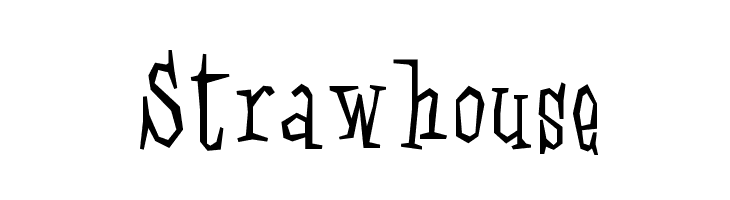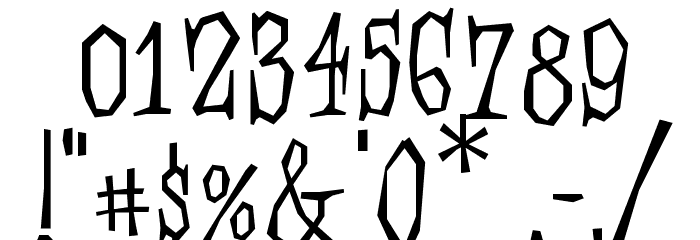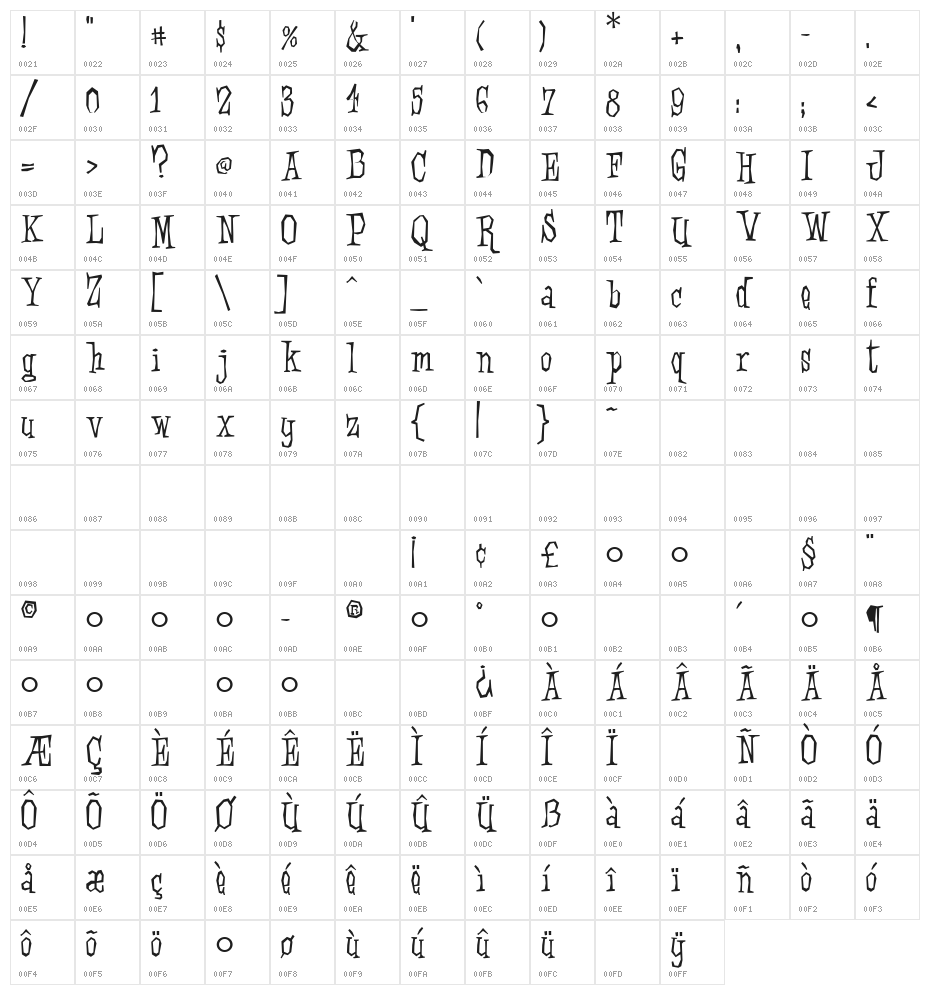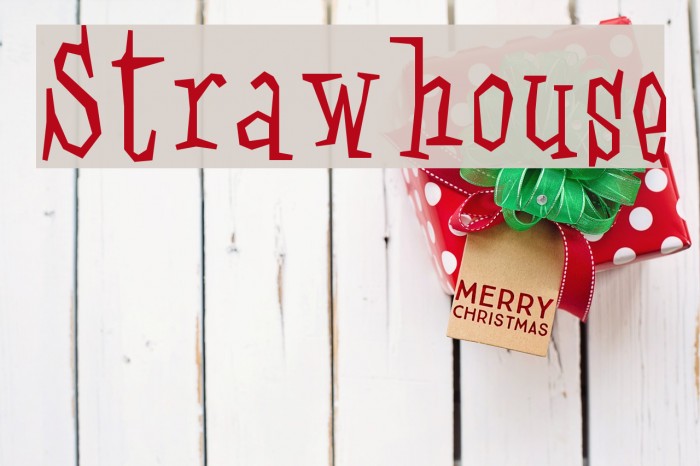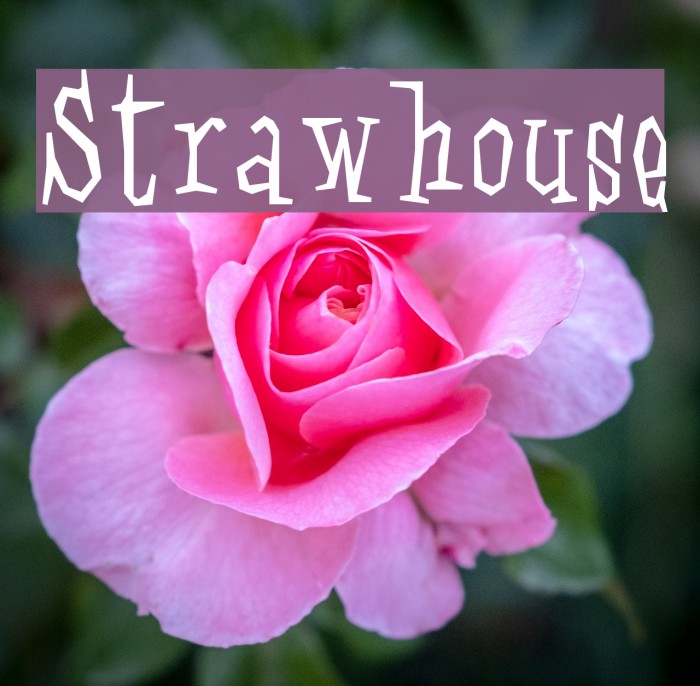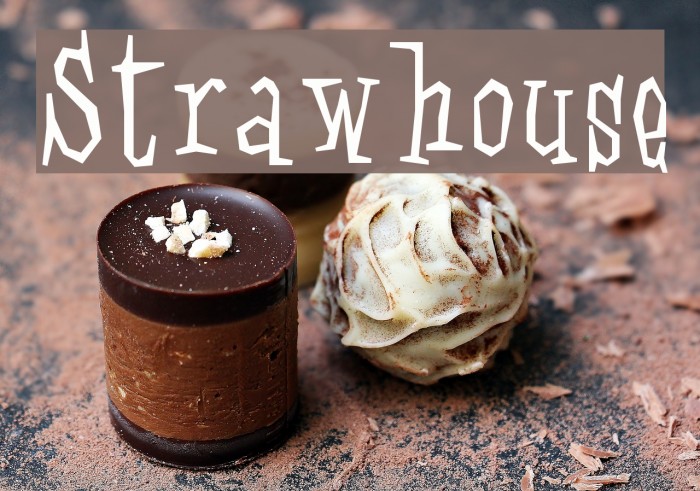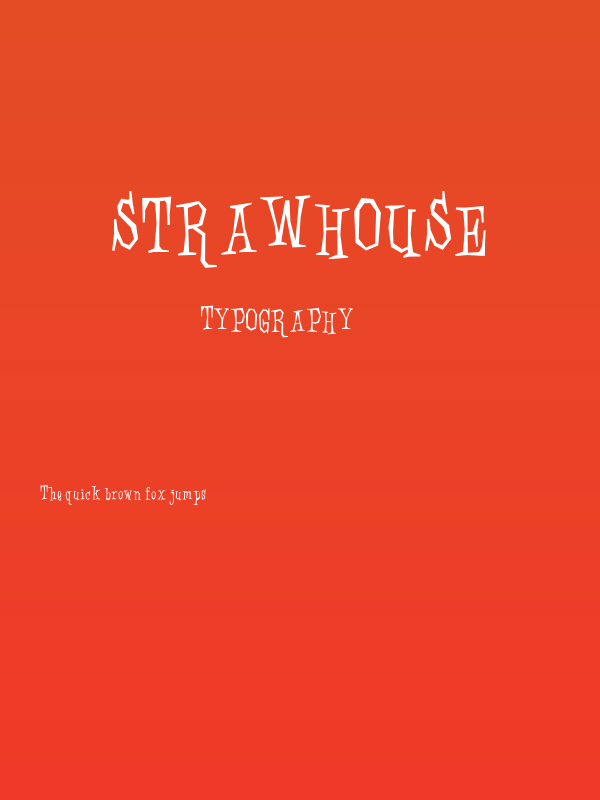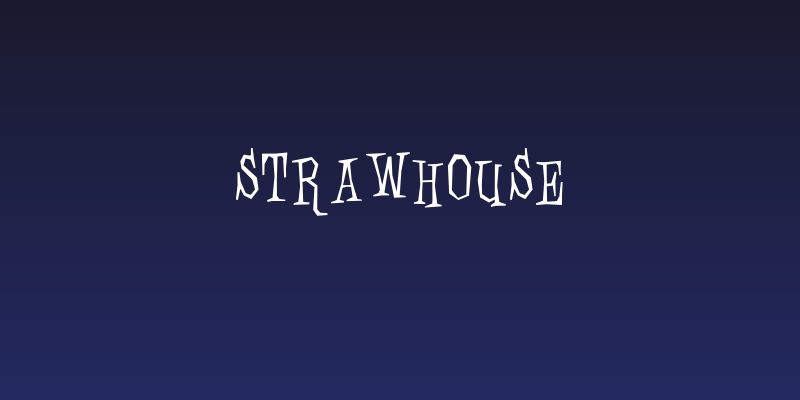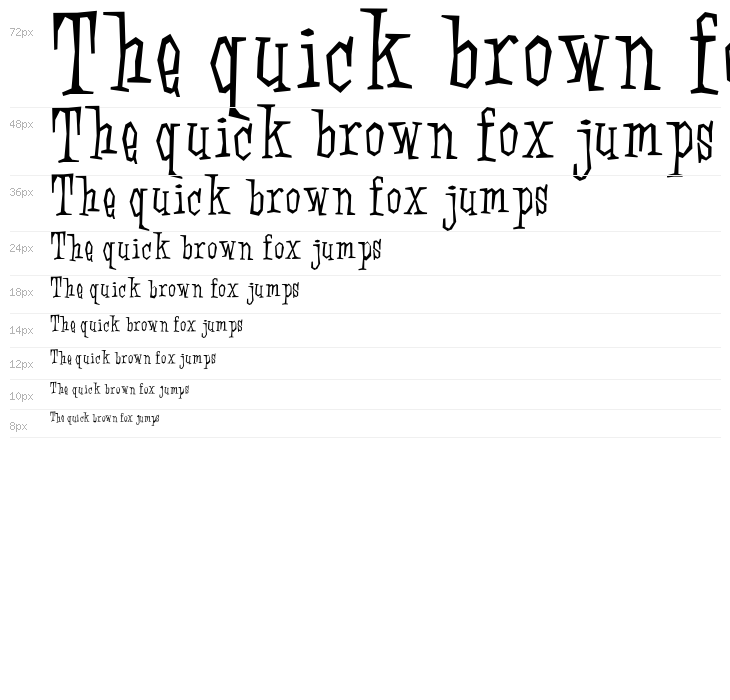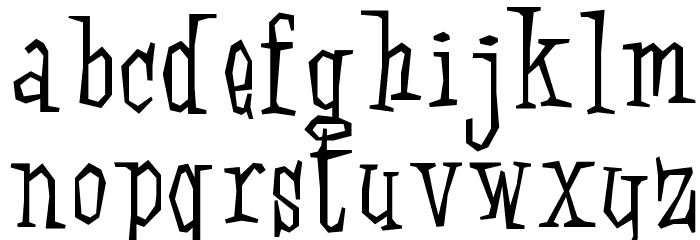
Strawhouse Font
Strawhouse Description
This font features a unique and quirky design with irregular, playful strokes that give it a hand-drawn appearance. The uppercase letters are tall and narrow, with varying line thicknesses that add a dynamic feel. The lowercase letters maintain a similar style, with some characters having distinctive loops and curves. Numbers and special characters follow the same whimsical design, making the font suitable for creative and informal projects. The overall look is both artistic and slightly rustic, perfect for adding a touch of personality to any design.
| Overall Style | Artistic, Rustic |
| Use Case | Headlines, Creative projects, Informal designs |
| Proposed Projects | Ideal for children's books, creative posters, and artistic branding. |